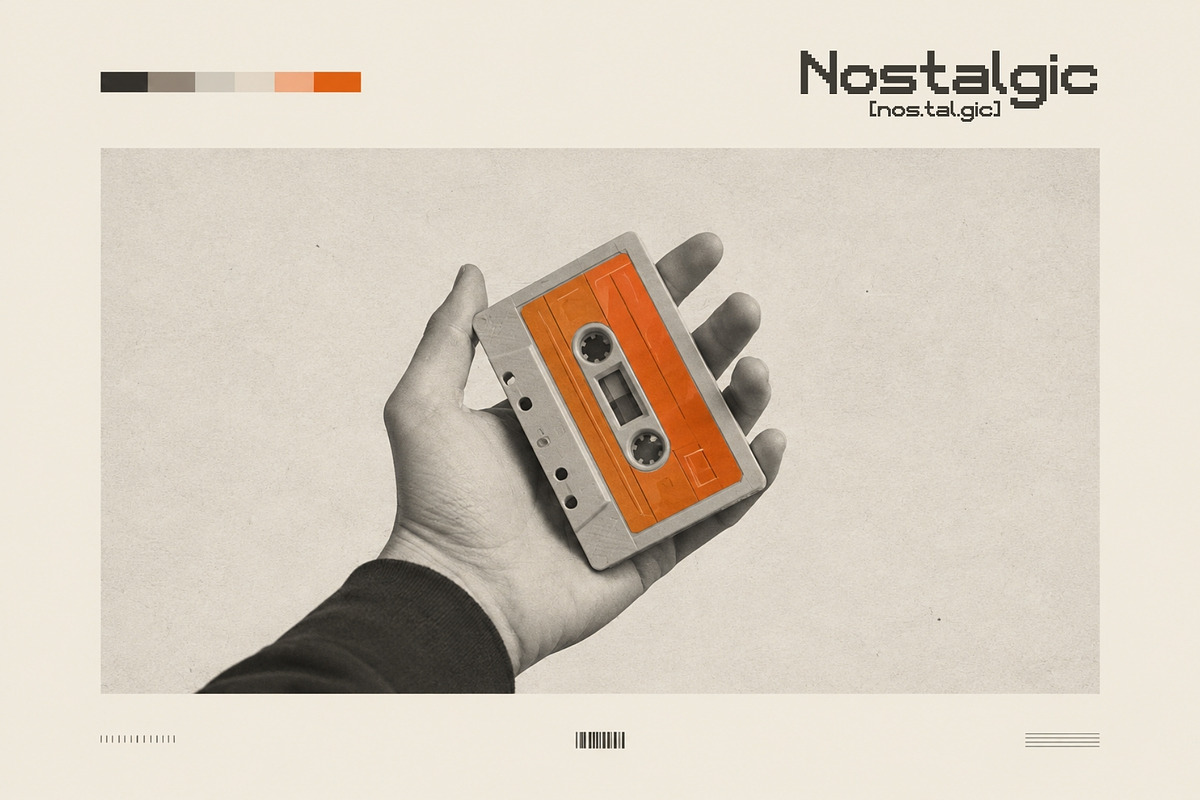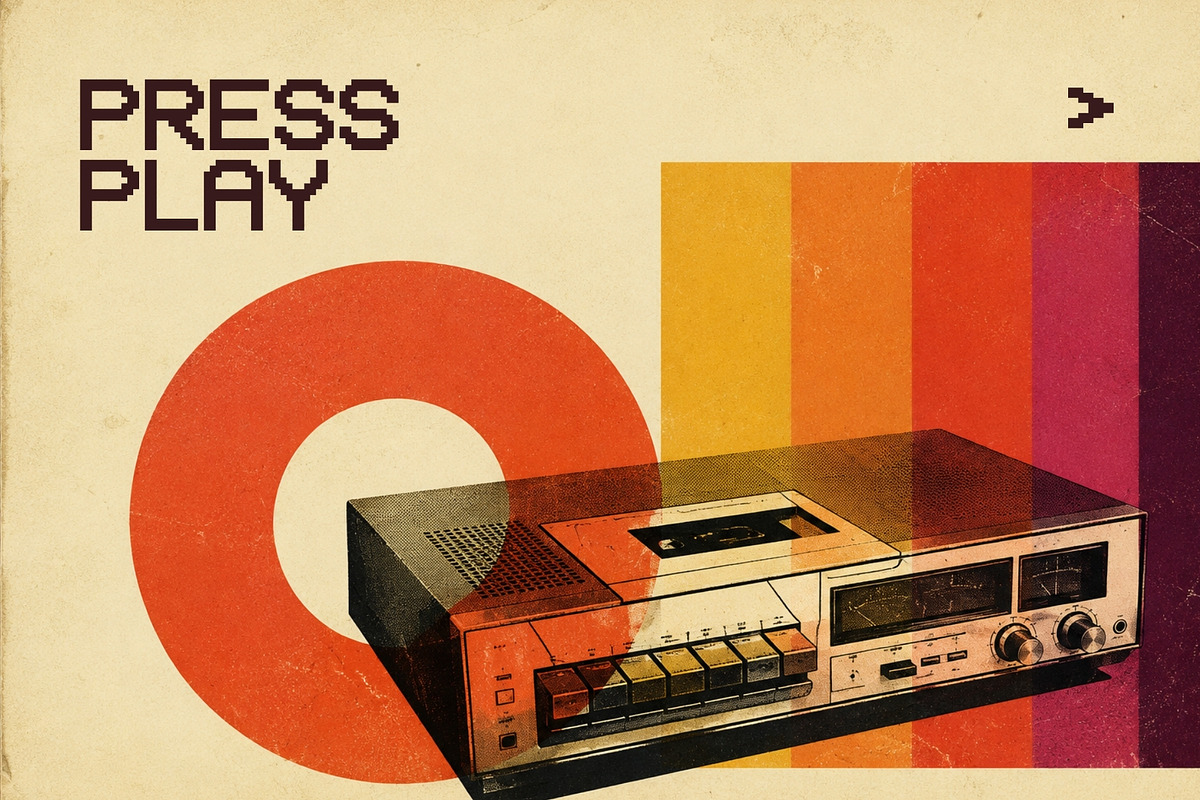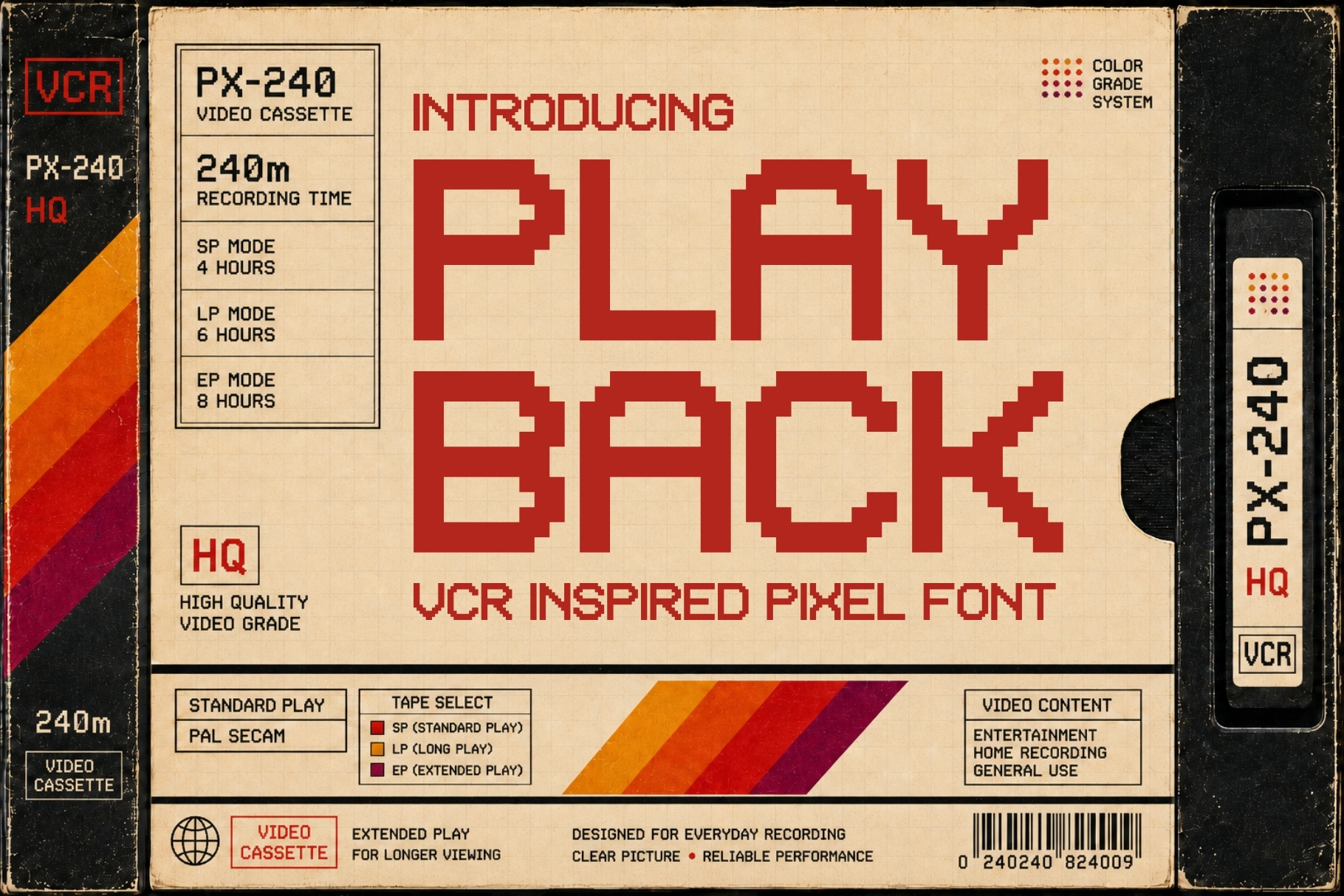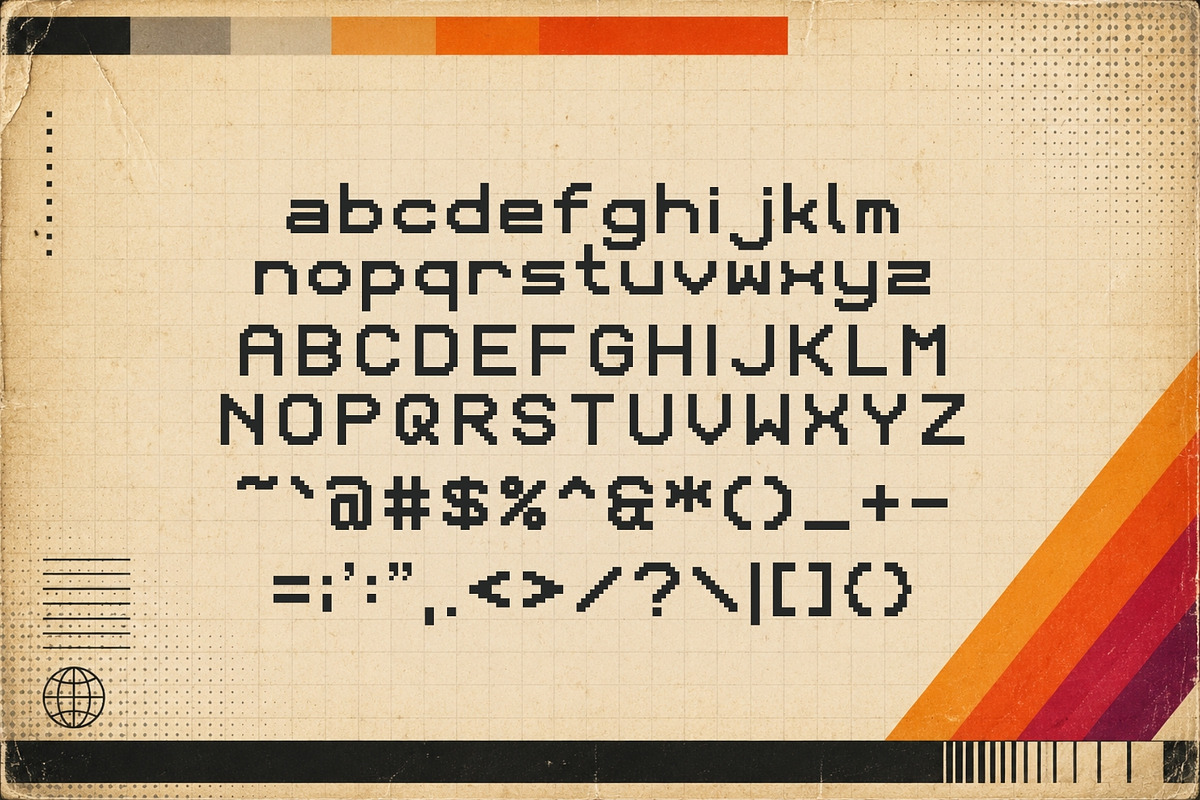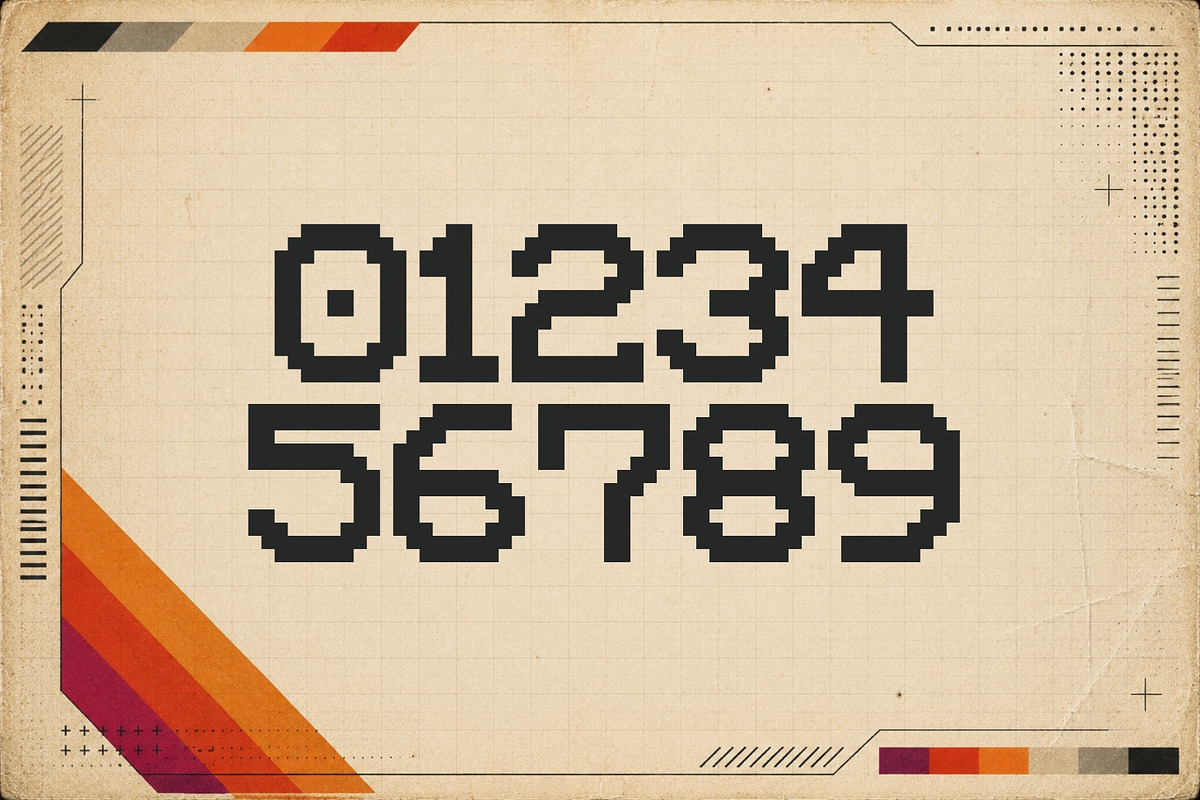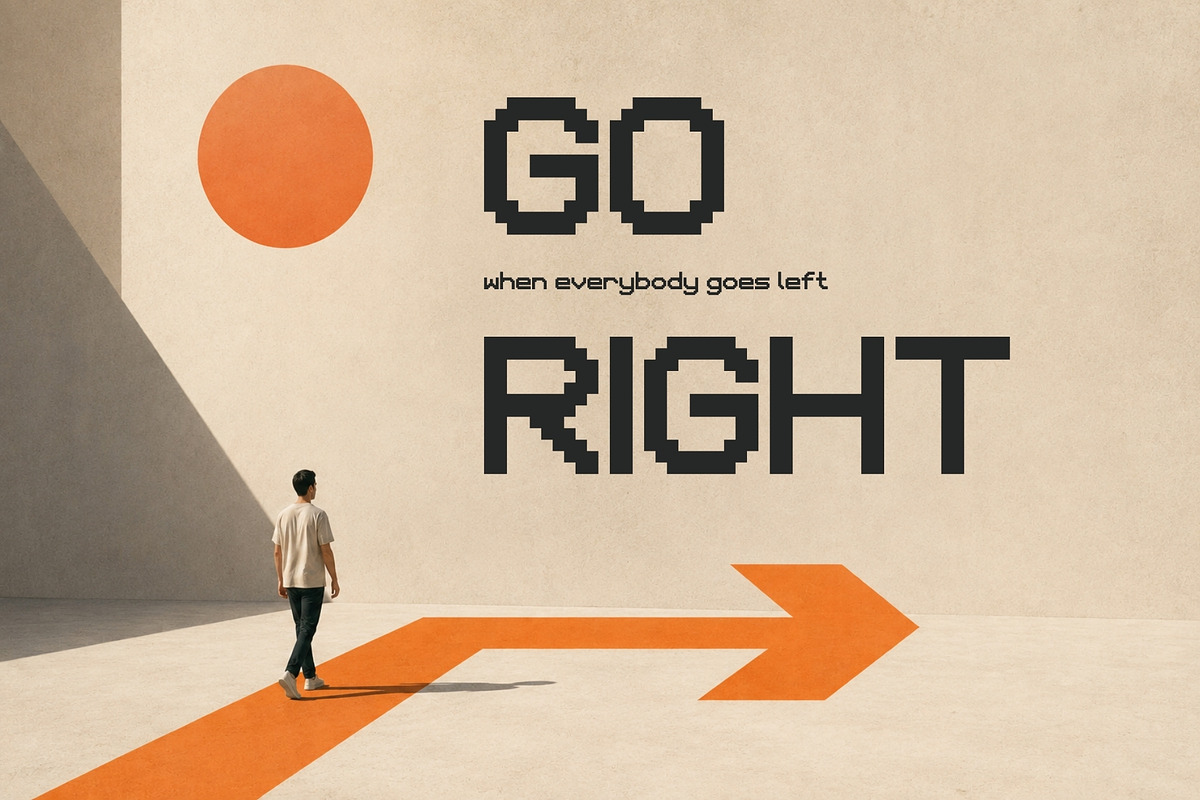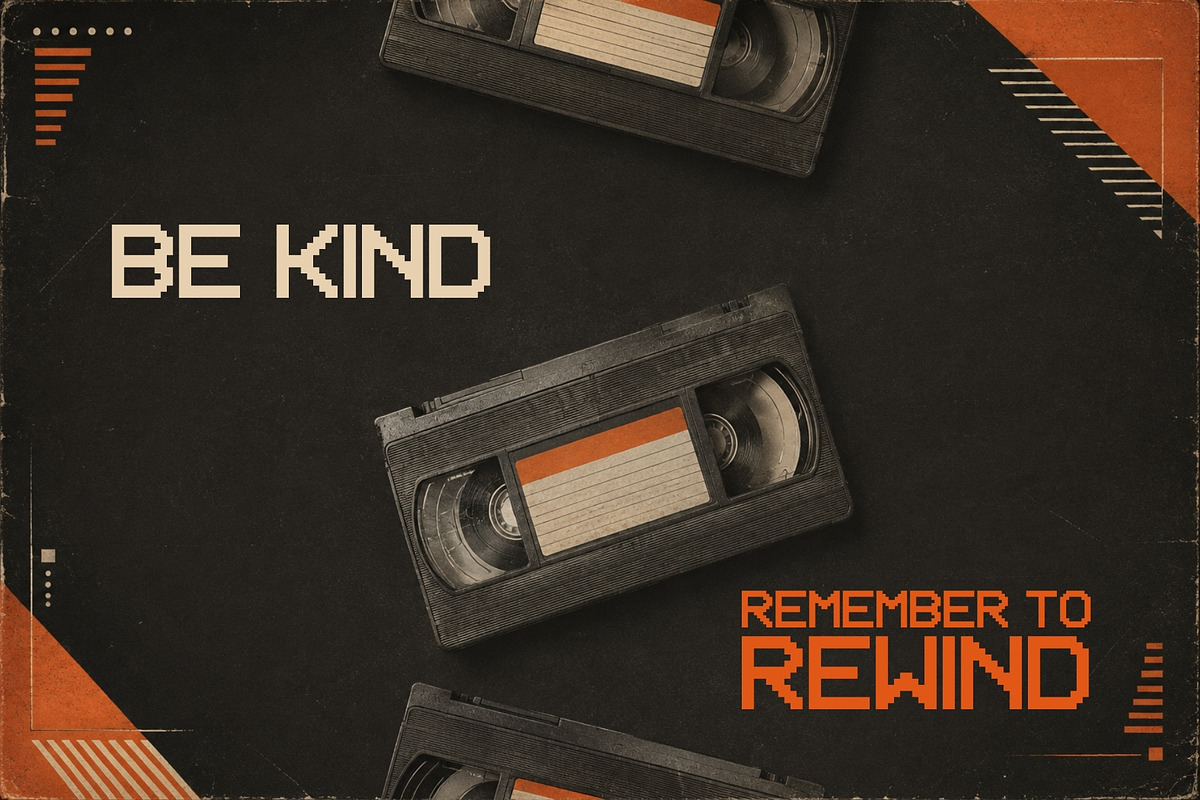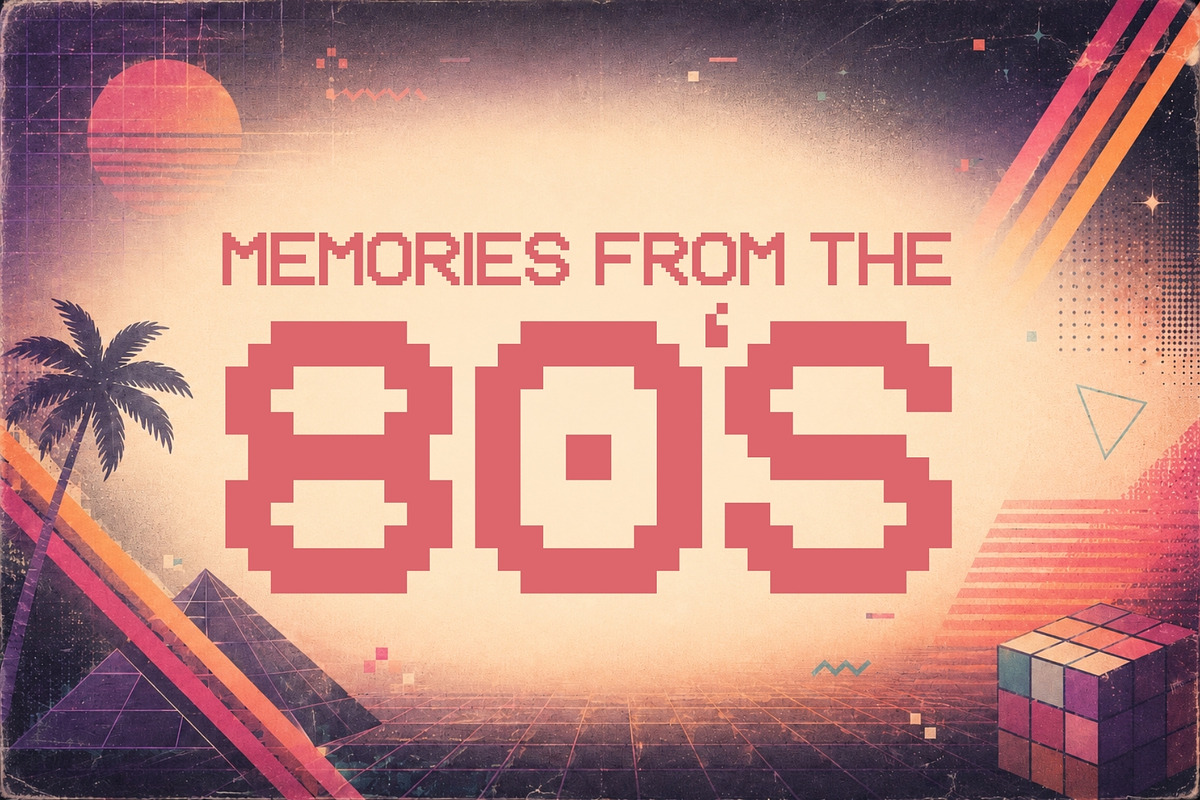
Playback - VCR Pixel Font
Hit PLAY and rewind your designs to the golden age of analog technology.
Playback is a bold 8-bit pixel font inspired by the unmistakable visual language of 1980s VHS tapes, VCR displays, analog video equipment, retro computers, broadcast graphics, and early digital interfaces. Its blocky geometry and pixel-built letterforms capture that nostalgic low-resolution character while still feeling sharp, modern, and surprisingly futuristic.
Playback bridges two worlds beautifully: retro analog nostalgia and modern digital technology. Use it to create graphics that feel pulled from an old video cassette box, computer terminal, arcade screen, vintage electronics catalog, or forgotten late-night broadcast—or push it forward into contemporary designs for AI companies, technology brands, startups, software, apps, gaming, cyber-inspired branding, and experimental digital projects.
The font has enough personality to immediately establish a visual identity without overwhelming the design. Large headlines feel bold and unmistakably retro, while smaller supporting typography creates the technical, utilitarian feeling of old electronic displays and equipment labels.
Whether you're recreating the atmosphere of a dusty videotape collection or designing the interface of tomorrow, Playback makes yesterday's technology feel futuristic again.